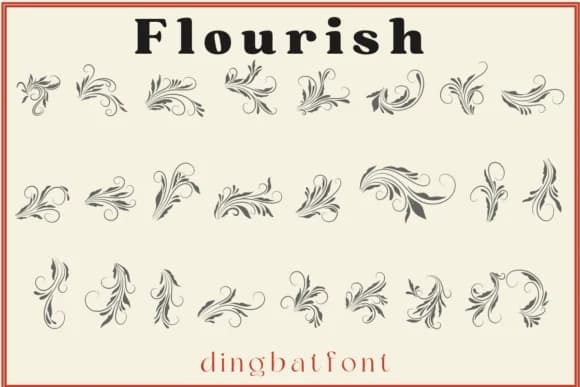
This font captures that nostalgic, hand-drawn charm that feels like it belongs in a vintage apothecary or antique stationery collection. Flourish, designed by Sakti Avellin, is a dingbat font loaded with ornamental flourishes and decorative elements that bring a personal, crafted touch to any project. The glyph set is rich with vintage-inspired ornaments, dividers, and flourishes that reward a closer look.
The hand-drawn quality makes it ideal for scrapbook embellishments, vintage wedding invitation suites, custom botanical label designs, and DIY craft packaging. Individual flourishes work beautifully as page dividers, corner accents, or repeating pattern fills. You can layer them throughout a layout to add texture and warmth, or use them sparingly as punctuation marks that catch the eye without overwhelming the design. The vintage aesthetic works especially well for projects where you want to suggest heritage or that handmade quality that customers find both trustworthy and charming.
Pair Flourish with a clean, simple sans-serif for body copy to let these ornaments breathe without competing for attention. The contrast between ornate and minimal creates visual balance and keeps your designs feeling intentional rather than scattered or busy. Grab it from Creative Fabrica and bring that character to your next project.
Flourish Font is a versatile dingbats font that works for both headings and body text. Pair it with a contrasting sans-serif or serif font to add visual interest and a clear distinction between titles and body copy.
Flourish Font